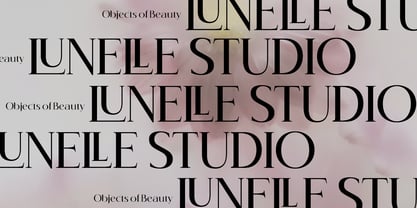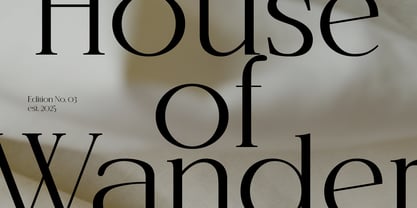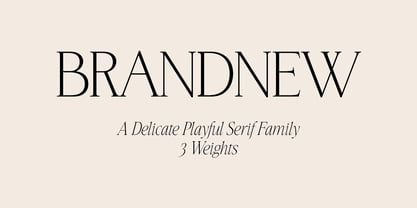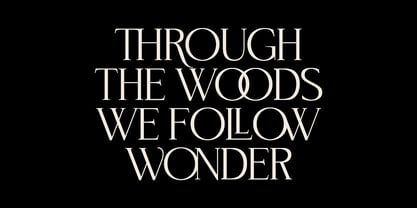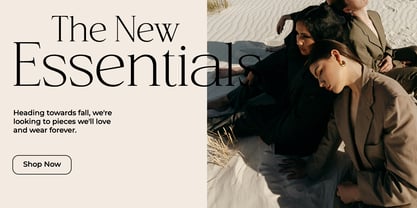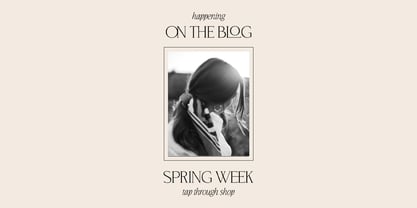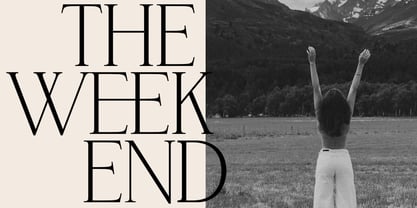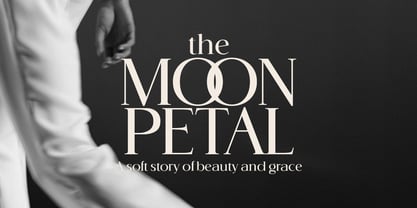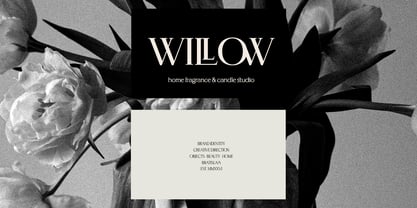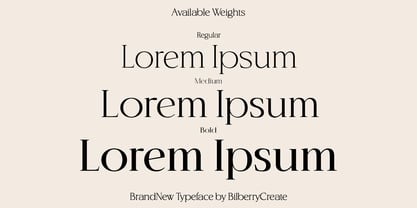
BrandNew Family
von Bilberry Create
Die Schriftfamilie BrandNew Family wurde von Daria Cherniackova entworfen und von Bilberry Create veröffentlicht. BrandNew Family enthält 3 Stile und Familienpaketoptionen.
BrandNew is a delicate yet confident serif typeface designed for modern, elegant visuals. It combines soft, flowing curves with sharp, refined details, creating a subtle contrast that feels both playful and sophisticated.
Perfect for branding, editorial layouts, packaging, and social media, BrandNew brings a quiet luxury aesthetic to any project. Its balanced proportions and graceful letterforms make it especially suitable for beauty, fashion, and lifestyle design.
The typeface includes three carefully crafted weights, allowing flexibility across headlines and body text while maintaining a cohesive look.
• What’s inside: – 3 weights: Regular, Medium, Bold – Uppercase & lowercase – Multilingual support – Numbers & punctuation
BrandNew is made for designers who want to add softness, elegance, and a modern serif touch without losing character.
Designer: Daria Cherniackova
Foundry: Bilberry Create